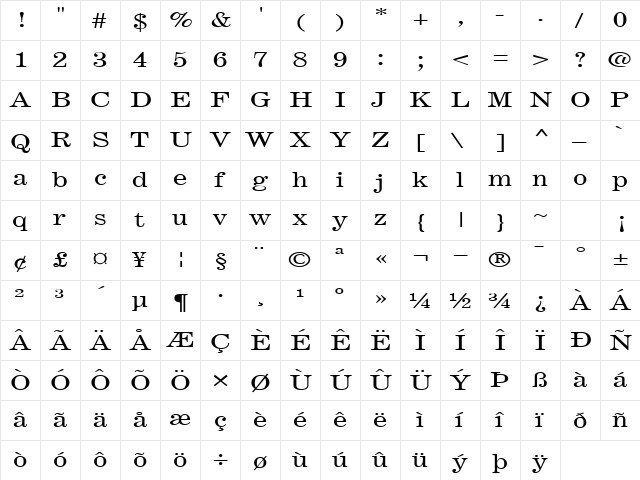
Fast Regular
Design Context for Fast Typeface
Fast takes a measured approach to typography — its balanced proportions and neutral character make it a reliable workhorse for both digital and print work.